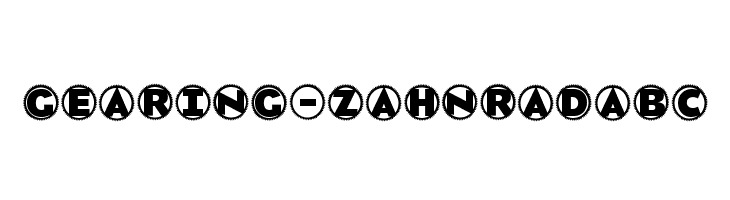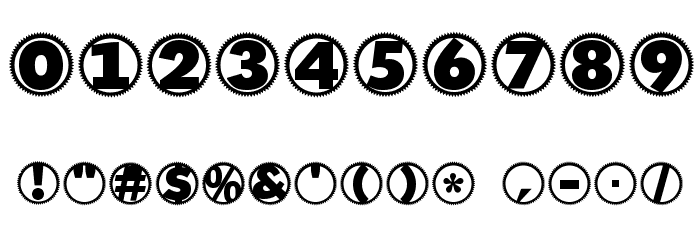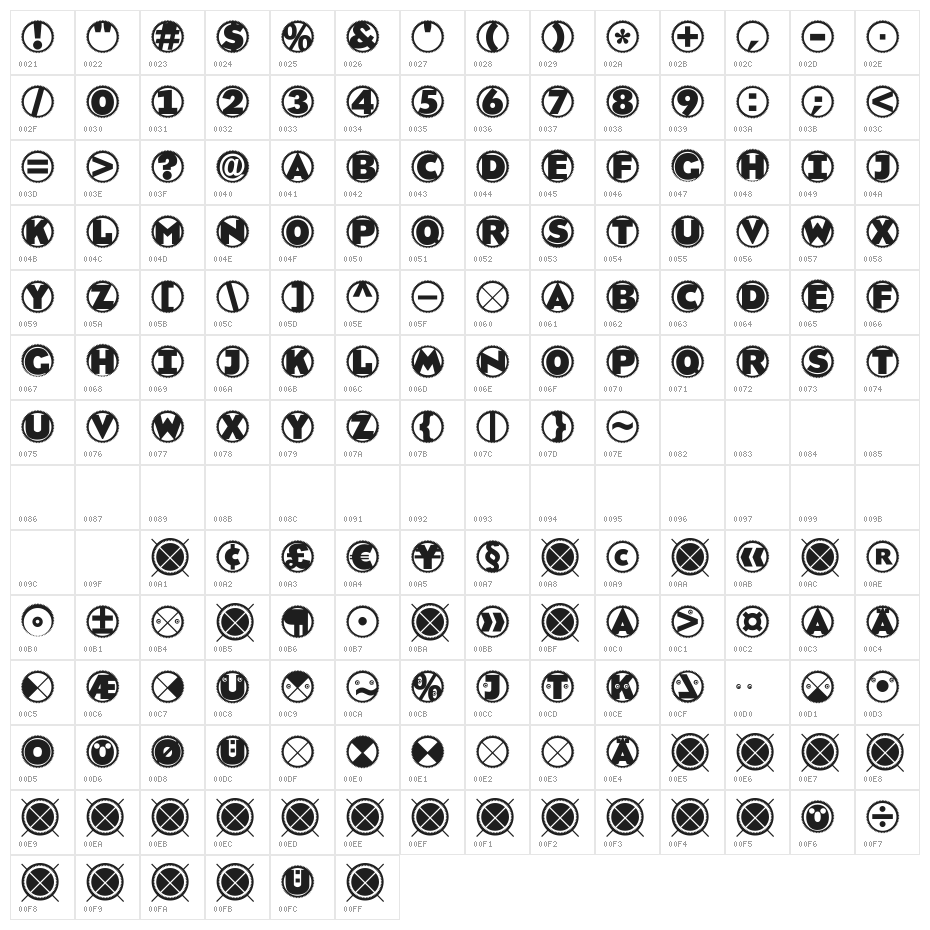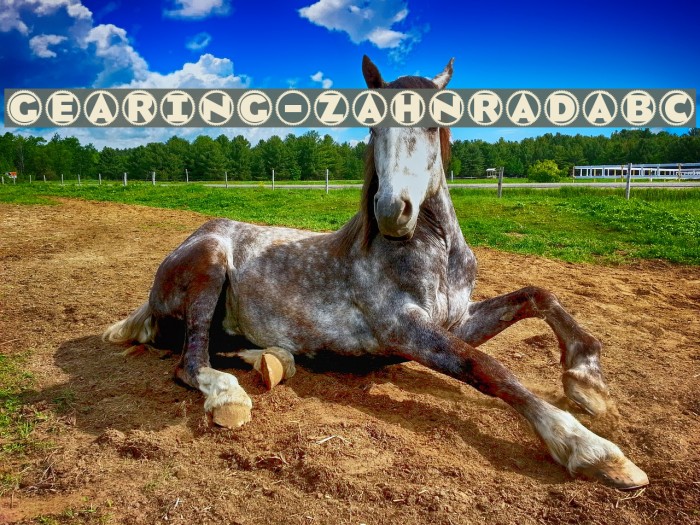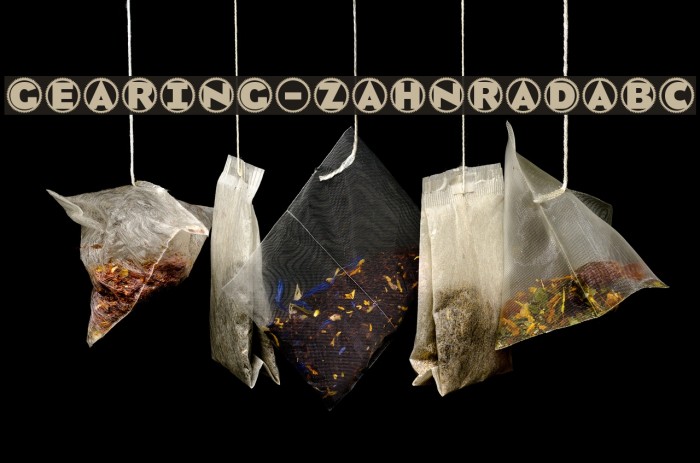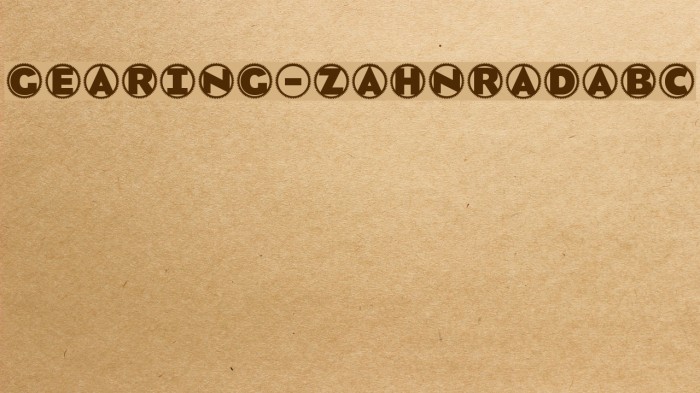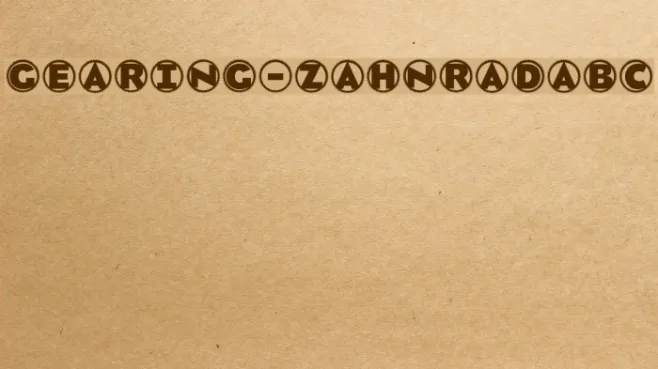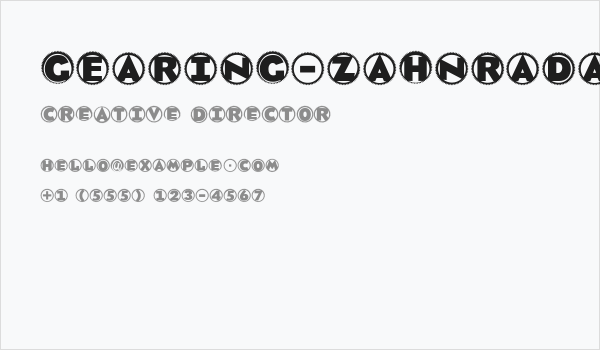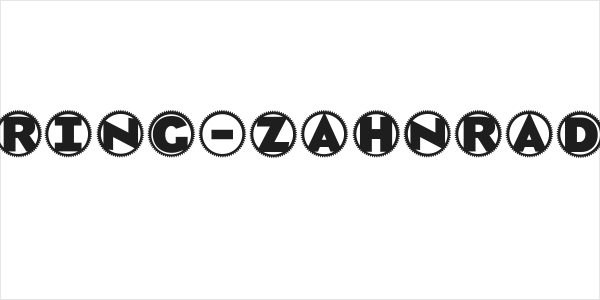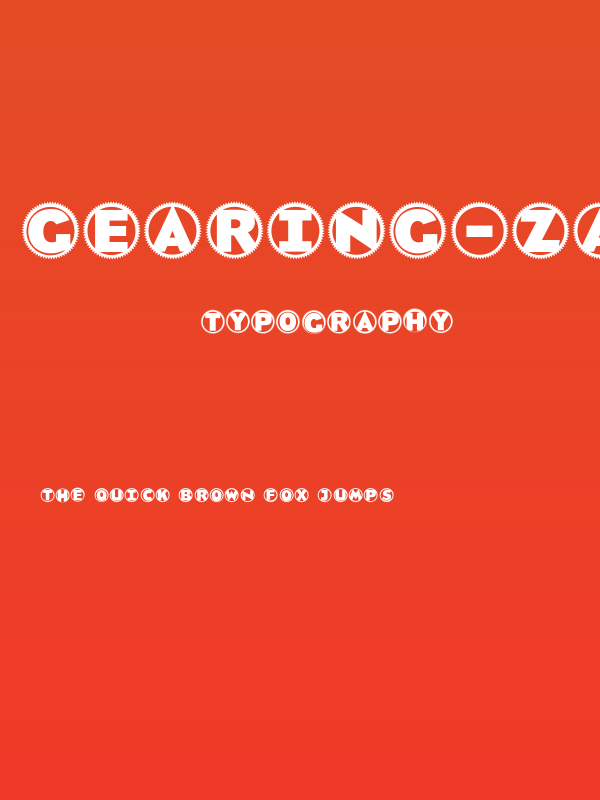
Gearing-ZahnradABC Font
Gearing-ZahnradABC Description
This font features a unique and bold design where each character is encased in a circular gear-like shape, giving it an industrial and mechanical feel. The letters and numbers are bold and prominent, with a high contrast between the thick strokes of the characters and the thin, spiked edges of the surrounding circles. The font is highly decorative, making it stand out and capture attention. It is ideal for projects that require a strong visual impact, such as posters, logos, or branding materials that aim to convey a sense of strength, innovation, or industrial themes. The characters are evenly spaced within their circular boundaries, maintaining a consistent and cohesive look across the entire set.
| Overall Style | Industrial, Decorative |
| Use Case | Logos, Posters, Branding |
| Proposed Projects | Ideal for industrial-themed posters, logos, branding, and promotional materials. |